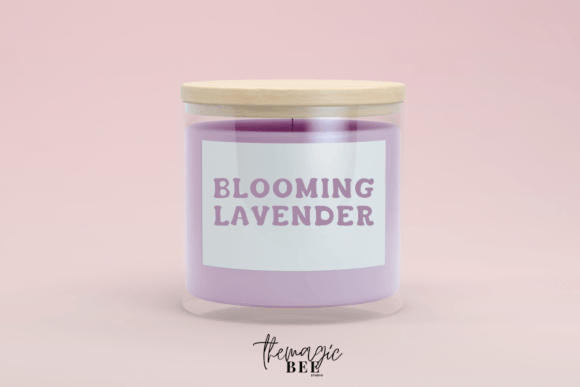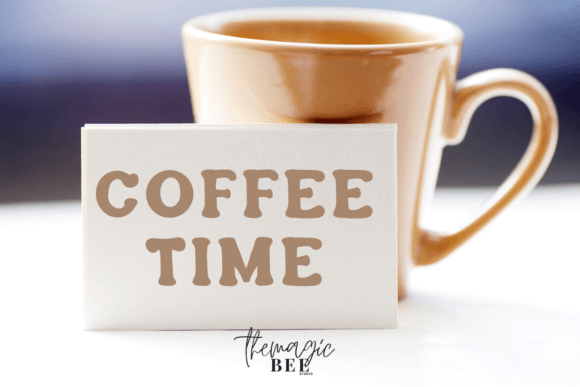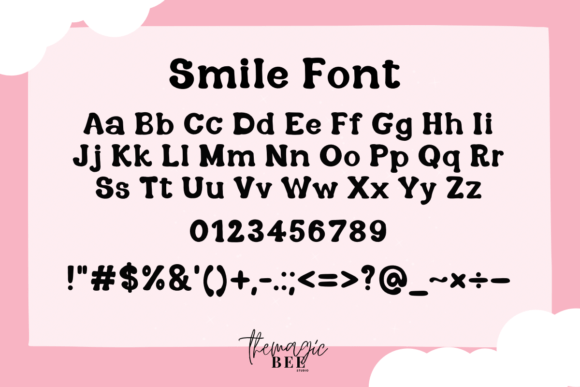
Introduction to Smile Font
Remember that moment when you stumbled upon the perfect font to match your creative vision? For many designers, it’s a moment of pure joy, like discovering a hidden treasure in a vast library of design resources. This time, we’re excited to introduce you to the Smile Font, a display font that’s sure to bring a smile to your face and elevate your designs to the next level.
Whether you’re working on a Valentine’s or Mother’s Day project, the Smile Font is the perfect addition to your design toolkit. Its cute and fun aesthetic makes it a standout choice for any creative project, from social media graphics to greeting cards. And the best part? It’s available for free download, making it an accessible and valuable resource for designers of all levels.
- High quality, professional font design suitable for various creative projects
- Designed with a unique, friendly aesthetic, perfect for projects requiring a smile-inducing tone
- Includes a comprehensive character set, including uppercase and lowercase letters, numbers, and punctuation marks
Honest Review: Smile Font
As a designer, I’m always on the lookout for high-quality design resources to elevate my creative projects. Recently, I stumbled upon Smile Font, and I’m excited to share my honest review.
What works well: ✨ The Smile Font is incredibly versatile, with a wide range of styles and weights to choose from. The font is also super easy to use, even for beginners. The transparent background option is a game-changer for designers who want to create seamless graphics.
What doesn’t work well: ⚠️ One thing I wish was different is the limited character set. While it’s not a deal-breaker, it would be great to see more characters and glyphs added to the font in future updates.
Introduction to Smile Font
Smile Font is a high-quality design resource perfect for adding a touch of personality to your creative project. This versatile font features a transparent background, making it easy to use in various design applications.
Smile Font is perfect for use in a variety of creative projects, including social media graphics, presentations, and marketing materials. Its high-quality design and transparent background make it a valuable addition to any design resource.
For the best results, use Smile Font in conjunction with other high-quality design elements. Experiment with different font sizes, colors, and arrangements to create a unique and visually appealing design. You can also download a free version of Smile Font to use in your next creative project.
Alternatives to Smile Font
Pacifico is a beautiful, high-quality script font ideal for creative projects that require a touch of elegance. It features a transparent background and a free download option, making it a great alternative to Smile Font. When to use: Use Pacifico for wedding invitations, branding, or any project where you want to convey a sense of sophistication. How it compares: Pacifico has a more refined and delicate feel compared to Smile Font, making it perfect for projects that require a touch of class.
Great Vibes is a modern, high-quality script font perfect for designers who want to add a creative touch to their projects. It features a transparent background and a free download option, making it a great alternative to Smile Font. When to use: Use Great Vibes for social media graphics, blog posts, or any project where you want to convey a sense of fun and playfulness. How it compares: Great Vibes has a more energetic and lively feel compared to Smile Font, making it perfect for projects that require a burst of creativity.